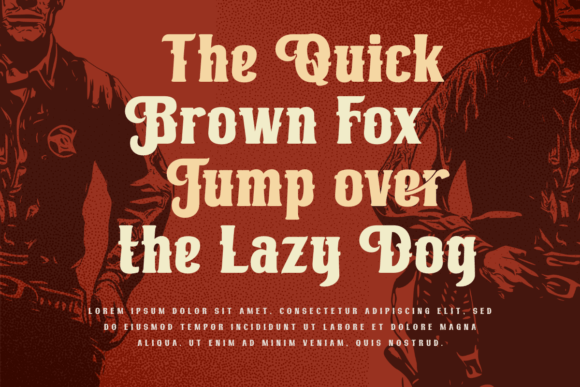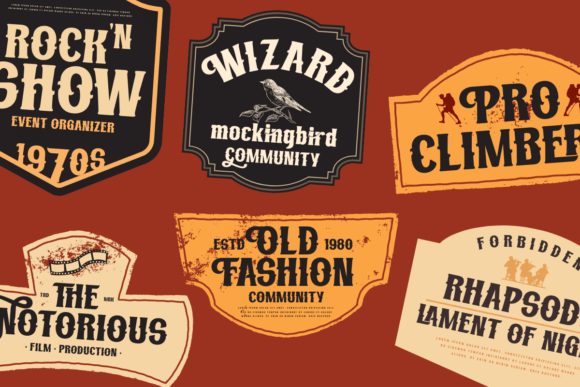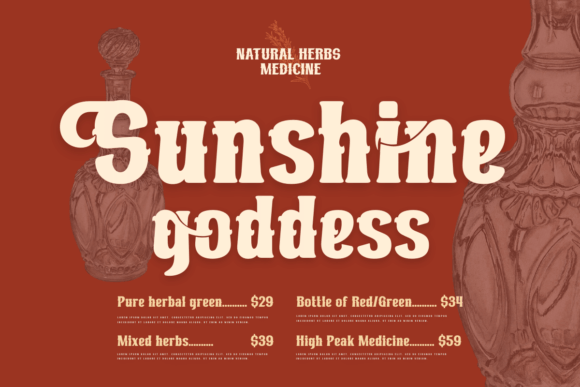
Introduction to Ruihant Font
For those of you who require a typeface with an attractive classic, retro, and vintage vibe, Ruihant is the ideal option.
This font was created with an original and striking look, making it ideal for all of your creative projects Premium features like ligature, alternative, and multilingual support are included, allowing you to customize the font’s design to suit your needs.
Key Features of Ruihant Font
Why Choose Ruihant Font?
Ruihant Font offers exceptional quality and versatility, making it a valuable addition to your design toolkit. Whether you’re creating for personal projects or commercial use, Ruihant Font delivers professional results.